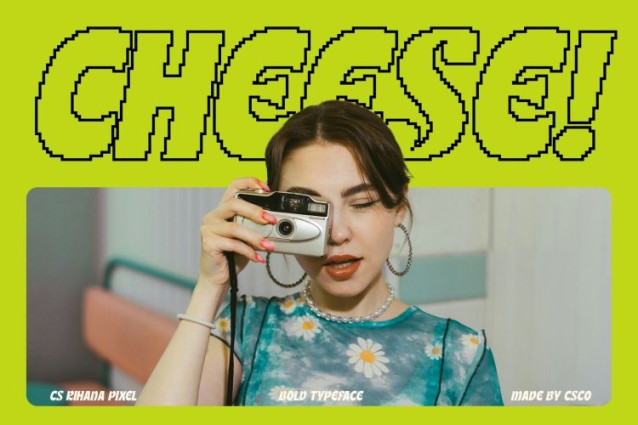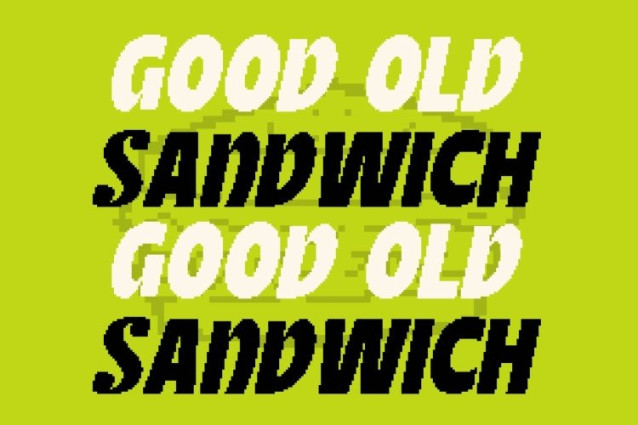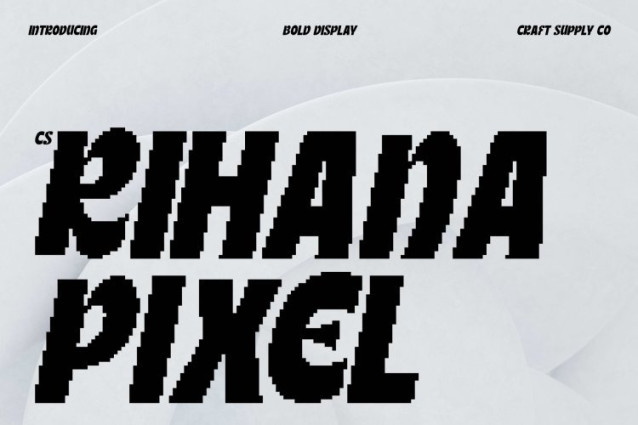
CS Rihana Pixel Font
CS Rihana Pixel Font This is a bold display sans serif font built to deliver confidence and visual impact. Its strong structure and modern proportions are enhanced with pixel-inspired detailing, giving the font a sharp, digital presence. Each letter is designed to stand out clearly, making it perfect for attention-grabbing typography in contemporary layouts.
Stylish Sans Serif with Retro-Digital Edge
This font refines classic sans serif forms through clean geometry and subtle pixel modifications. Smooth curves meet structured angles, creating a balance between elegance and strength. The pixel influence adds a nostalgic tech flavor while keeping the overall look modern, stylish, and highly readable.
Perfect for Headlines, Titles, and Digital Displays
With its bold weight and confident design, this font excels in headlines, titles, posters, and hero text. It performs especially well on screens, making it ideal for digital campaigns, social media graphics, website headers, and futuristic layouts that require clarity and strong personality.
Versatile for Branding, Editorial, and Creative Projects
Beyond display use, this font adapts seamlessly to logos, branding systems, editorial layouts, and visual identities. Its strong yet refined character makes it suitable for fashion, media, technology, and modern branding projects delivering a powerful and stylish impression every time.